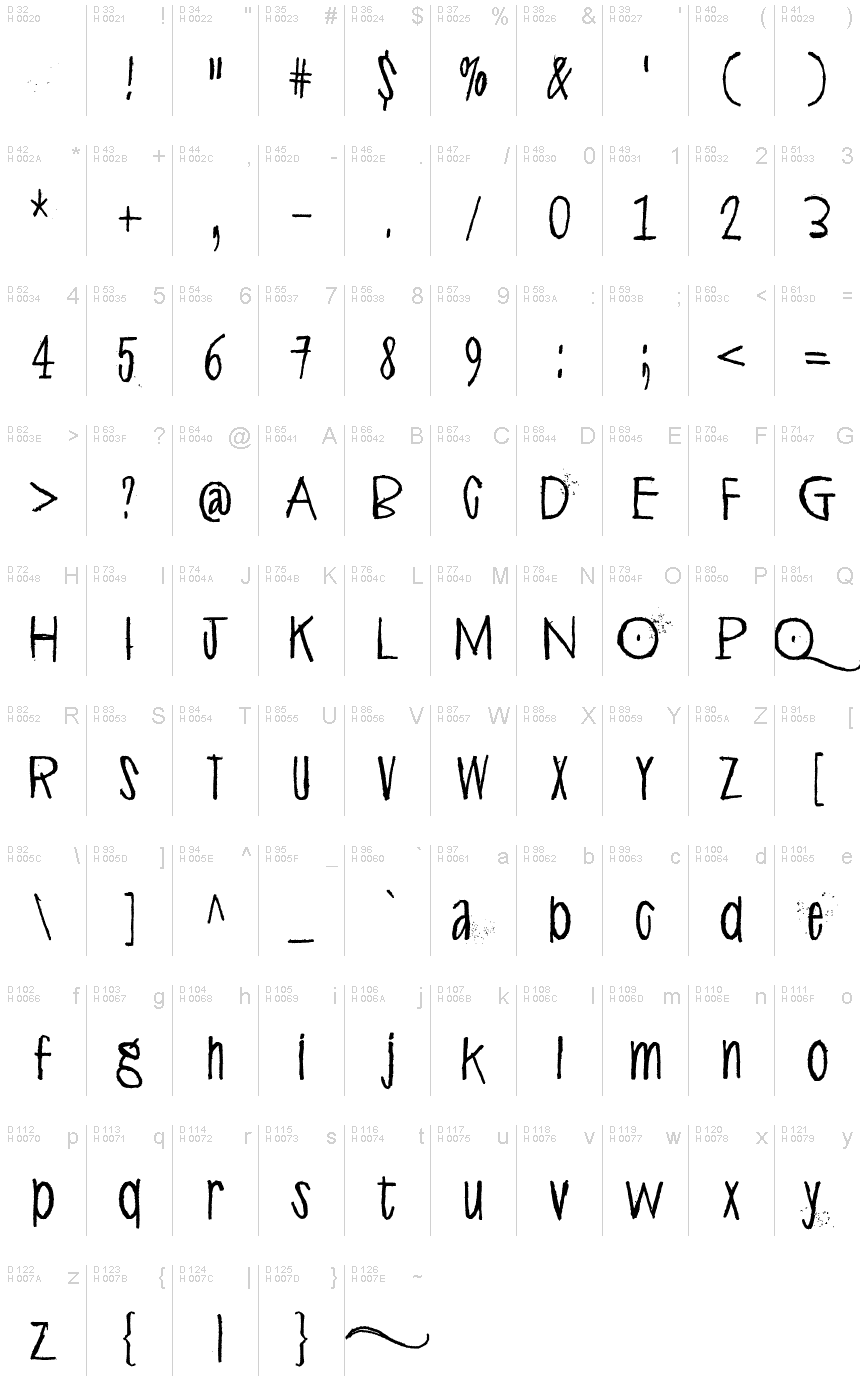
Alphabet Minus Eighty Dirty
Alphabet Minus Eighty Dirty, the latest script font from designer junkohanhero, is perfect for projects that require a touch of fright and grunge. Its semi-light weight and condensed width make it ideal for headers, logos, and branding materials. This scary/trash style font will add a unique and edgy element to your designs. Use it for horror movie titles, Halloween party invitations or even punk rock album covers. Alphabet Minus Eighty Dirty is sure to make a bold statement in any project where you want to stand out from the crowd.